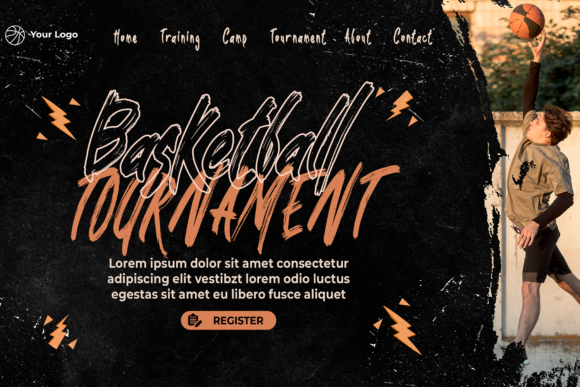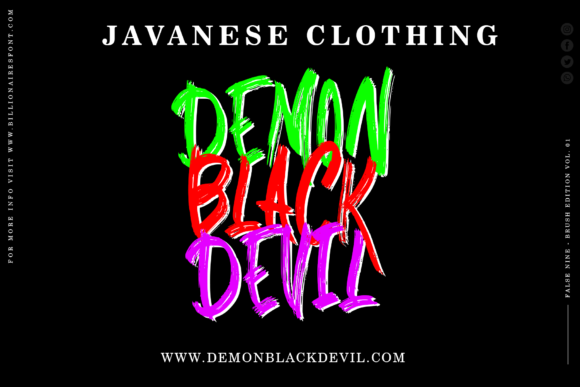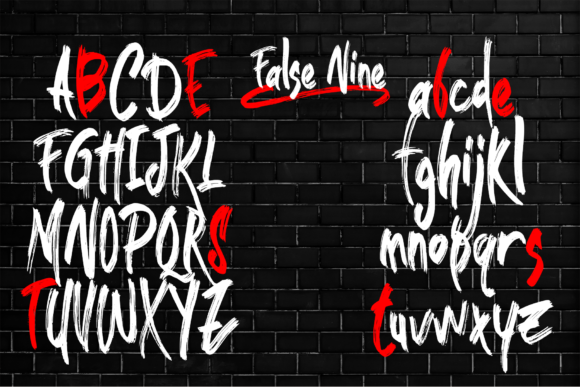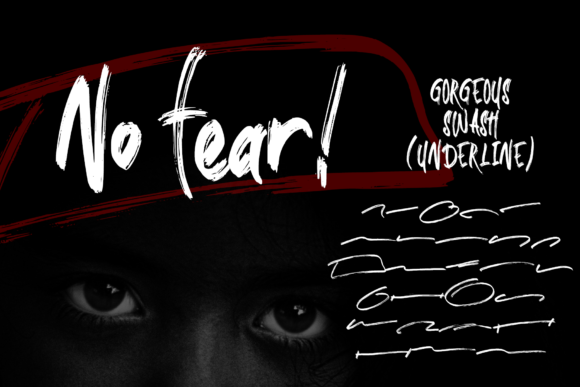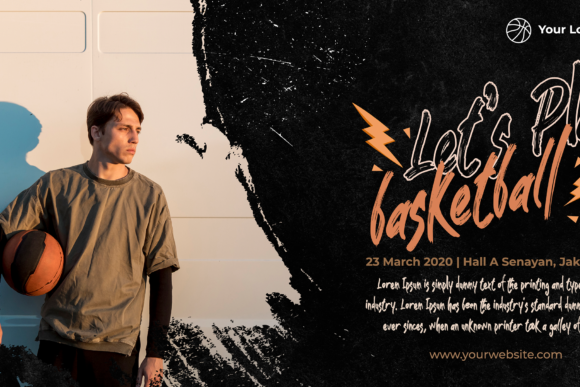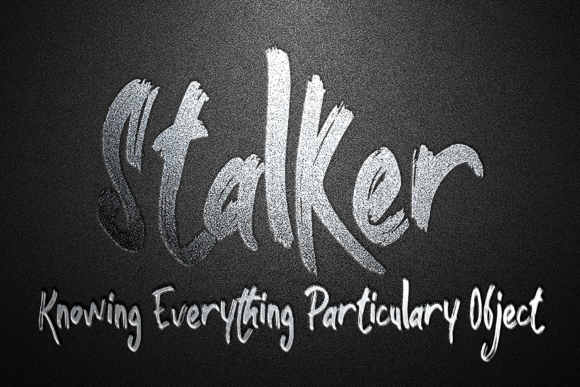
Introducing False Nine Font: The Perfect Blend of Casual and Quirky
Are you tired of using the same old fonts for your design projects? Look no further than False Nine Font, a casual, fun handwritten font that’s sure to add a touch of personality to your work. Created by using a brush pen, this font is clean, quirky, and perfect for a wide range of applications, from logos and branding to social media and crafty DIY projects.
The Inspiration Behind False Nine Font
False Nine Font is the brainchild of a talented designer who sought to create a font that was both playful and professional. By using a brush pen to craft the font, they were able to achieve a unique, hand-crafted look that’s reminiscent of handwritten notes and street art. The result is a font that’s equal parts casual and sophisticated, making it perfect for designers and crafters who want to add a personal touch to their work.
Key Features of False Nine Font
- Handwritten with a brush pen: False Nine Font has a distinctive, hand-crafted look that’s achieved by using a brush pen. This gives the font a unique, organic feel that’s perfect for designs that need a personal touch.
- Clean and quirky: False Nine Font is both clean and quirky, making it perfect for designs that need to be eye-catching and engaging. The font’s clean lines and quirky charm make it perfect for a wide range of applications.
- Perfect for logos and branding: False Nine Font is an excellent choice for logos and branding projects. Its unique, hand-crafted look makes it perfect for businesses that want to stand out from the crowd and establish a strong brand identity.
- Great for social media: False Nine Font is also perfect for social media projects. Its playful, engaging look makes it perfect for creating eye-catching social media graphics, posts, and stories.
- Ideal for crafty DIY projects: False Nine Font is a great choice for crafty DIY projects, such as crafting, scrapbooking, and other handmade endeavors. Its unique, hand-crafted look makes it perfect for adding a personal touch to your DIY projects.
Using False Nine Font in Your Designs
False Nine Font is a versatile font that can be used in a wide range of design applications. Here are a few ideas to get you started:
- Logos and branding: Use False Nine Font to create a unique and eye-catching logo for your business. Its clean lines and quirky charm make it perfect for businesses that want to stand out from the crowd.
- Social media graphics: Use False Nine Font to create eye-catching social media graphics, posts, and stories. Its playful, engaging look makes it perfect for grabbing the attention of your followers.
- Crafty DIY projects: Use False Nine Font to add a personal touch to your crafty DIY projects, such as crafting, scrapbooking, and other handmade endeavors.
- Invitations and announcements: Use False Nine Font to create unique and eye-catching invitations and announcements. Its clean lines and quirky charm make it perfect for formal and informal events.
Tips for Getting the Most Out of False Nine Font
Here are a few tips for getting the most out of False Nine Font:
- Experiment with different colors: False Nine Font looks great in a wide range of colors. Experiment with different colors to find the one that works best for your design.
- Use it with other fonts: False Nine Font pairs well with other fonts. Experiment with using it with other fonts to create a unique and eye-catching design.
- Play with different sizes: False Nine Font looks great in a wide range of sizes. Experiment with different sizes to find the one that works best for your design.
False Nine Font is a unique and versatile font that’s perfect for designers and crafters who want to add a personal touch to their work. Its clean lines, quirky charm, and hand-crafted look make it perfect for a wide range of applications, from logos and branding to social media and crafty DIY projects. With its ease of use and flexibility, False Nine Font is sure to become a favorite font in your design arsenal.